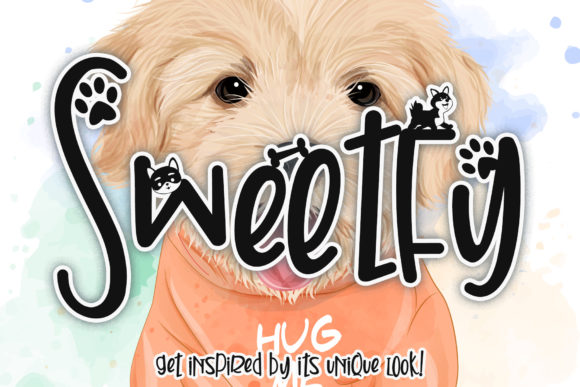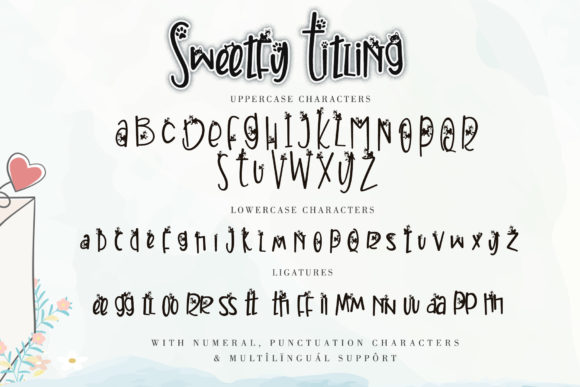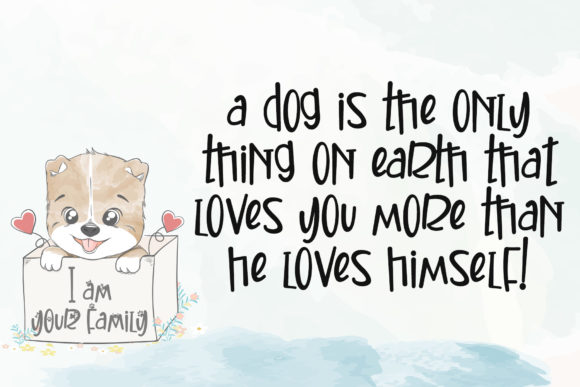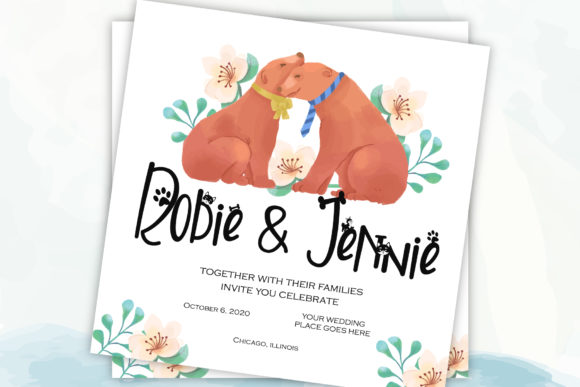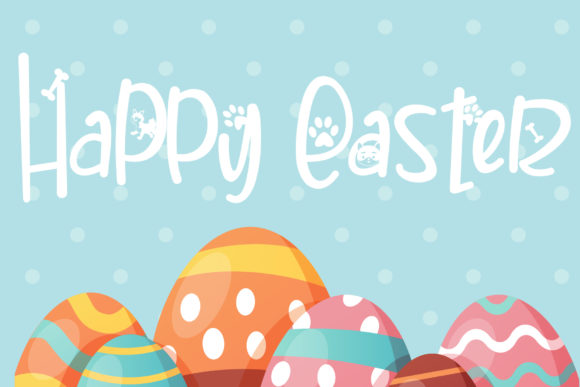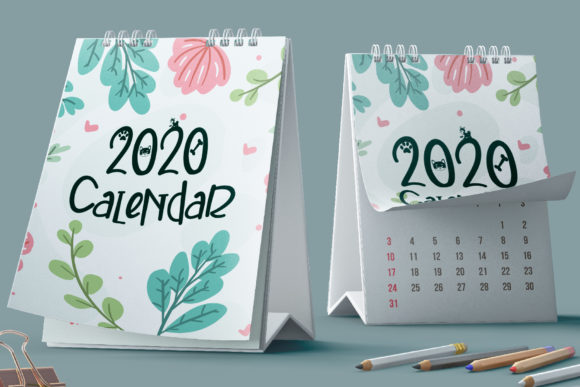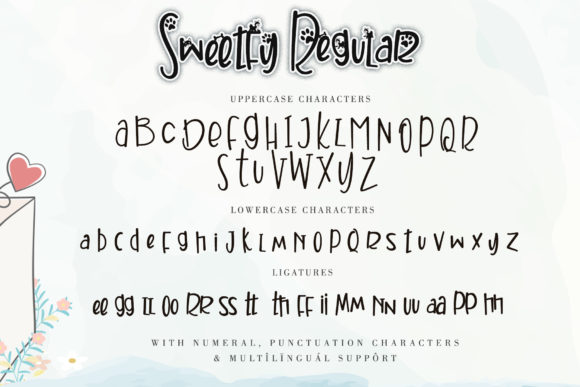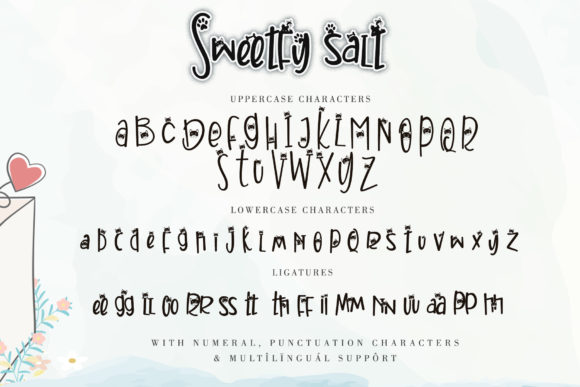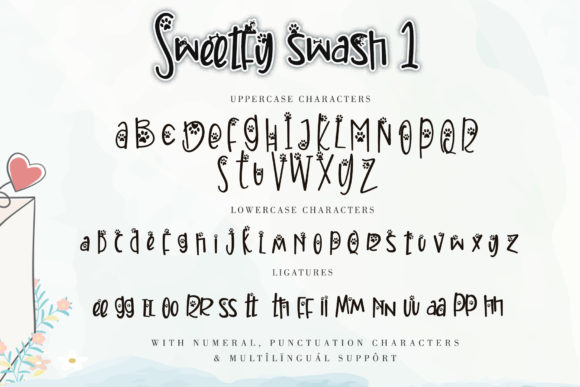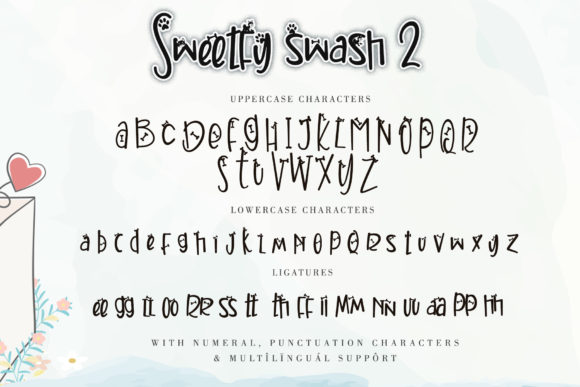
Sweetfy Font
About Sweetfy Font
Sweetfy is a cute handwritten font. Whether you’re looking for fonts for Instagram or calligraphy scripts for DIY projects, Sweetfy will turn any creative idea into a true piece of art!